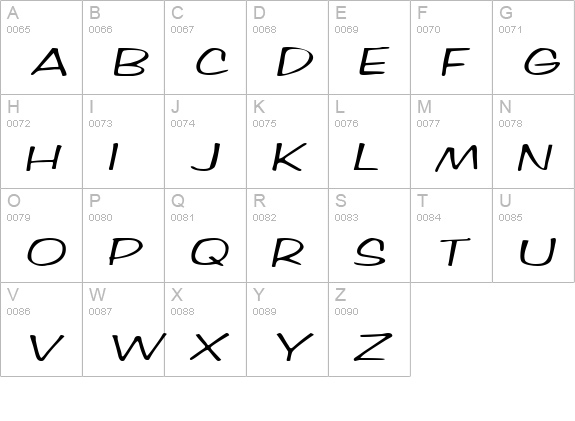
MarloExtended Italic Font Details
MarloExtended Italic is a distinctive, italic variant in the MarloExtended typeface family \xE2\x80\x94 well suited to design and typography projects.
MarloExtended Italic font is a stunning display typeface that exudes elegance and sophistication. Its captivating design features elongated and gracefully slanted letterforms, making it perfect for adding a touch of style to any project. With its refined and unique characteristics, MarloExtended Italic font effortlessly captures attention and creates a lasting impression. It is ideal for various creative applications such as branding, logos, headlines, and editorial designs. One of the most remarkable aspects of MarloExtended Italic font is that it is available for free. Yes, you read that right! This extraordinary typeface can be freely downloaded from FontsMarket.com, making it accessible to designers and enthusiasts alike. By offering this font for free, MarloExtended Italic font embodies the spirit of inclusivity and accessibility in the design community. It eliminates any barriers and empowers users to explore their creative potential without any constraints. The versatility of MarloExtended Italic font is truly remarkable. Whether used in digital or print media, it effortlessly adapts to various sizes and contexts, ensuring that the message is conveyed with utmost clarity and impact. With its sleek curves and exquisite details, MarloExtended Italic font adds a touch of sophistication to any project. It effortlessly blends contemporary aesthetics with a timeless appeal, making it a perfect choice for those seeking a font that stands out from the crowd. So, why wait? Head over to FontsMarket.com and download MarloExtended Italic font for free today. Unleash your creativity and elevate your designs with this stunning typeface that is both captivating and freely available to all.